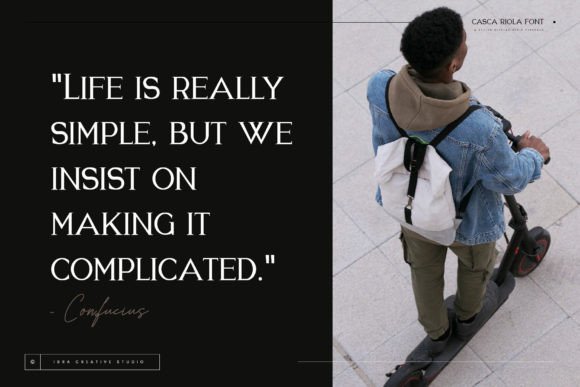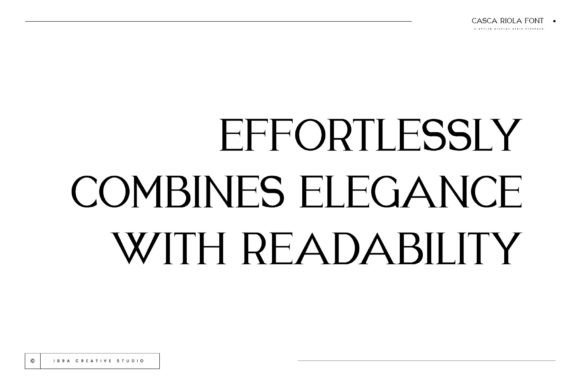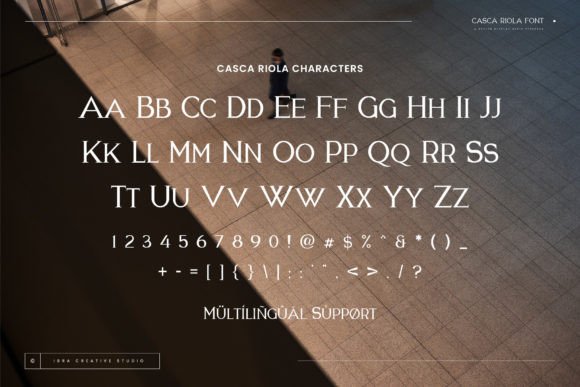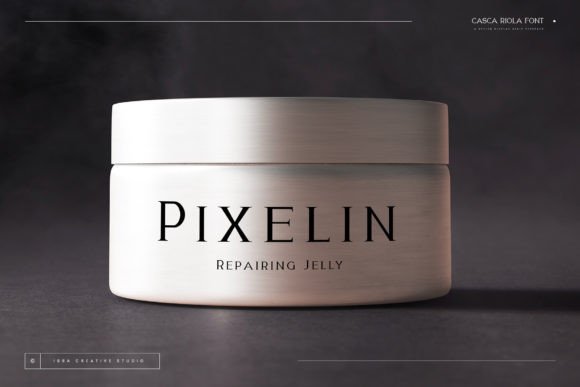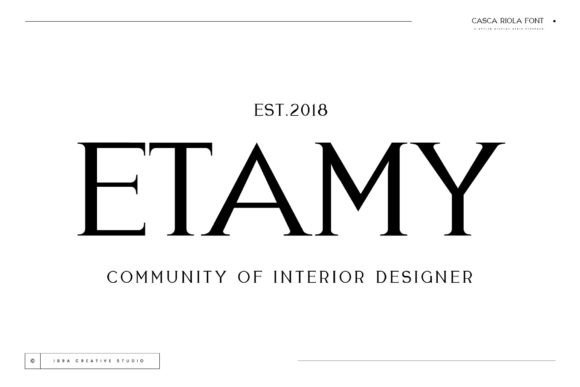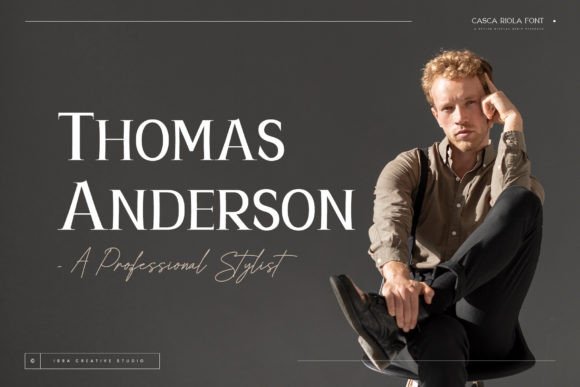
Introducing Casca Riola Font: A Timeless Classic Display Serif
In the world of typography, few fonts manage to strike a balance between elegance and readability. Casca Riola Font is one such exceptional typeface that effortlessly combines traditional and contemporary design elements, making it a versatile choice for various applications. This stunning display serif font is a masterpiece of refined letterforms, sturdy serifs, and well-defined strokes that exude authority, sophistication, and modernity.
The Design Philosophy of Casca Riola Font
Casca Riola Font is rooted in a deep understanding of typographic design principles. Its creator aimed to craft a font that would not only pay homage to classic serif typefaces but also infuse them with a fresh, modern twist. The result is a font that boasts a harmonious balance between traditional and contemporary elements, making it perfect for designers and crafters seeking a sophisticated and elegant typographic solution.
Key Features of Casca Riola Font
- Refined Letterforms: Casca Riola Font features exquisitely crafted letterforms that showcase a perfect blend of classic and modern design elements. Each letter is carefully designed to ensure optimal readability and aesthetic appeal.
- Sturdy Serifs: The sturdy serifs in Casca Riola Font add a sense of authority and sophistication, making it suitable for use in headings, titles, and other display applications.
- Well-Defined Strokes: The well-defined strokes in Casca Riola Font contribute to its exceptional readability, even at smaller sizes.
- Subtle Details: The subtle details in the letter shapes add a touch of modernity to the font, setting it apart from more traditional serif typefaces.
Applications of Casca Riola Font
Casca Riola Font’s versatility makes it an excellent choice for a wide range of applications, including:
- Branding and Logo Design: The font’s elegant and sophisticated design makes it perfect for use in branding and logo design, particularly for luxury brands, high-end products, and services.
- Headings and Titles: Casca Riola Font’s sturdy serifs and well-defined strokes make it an excellent choice for headings and titles in publications, websites, and marketing materials.
- Packaging Design: The font’s refined letterforms and subtle details make it suitable for use in packaging design, particularly for premium products.
- Digital Media: Casca Riola Font’s exceptional readability and elegant design make it an excellent choice for use in digital media, including websites, social media, and mobile apps.
Why Choose Casca Riola Font?
With so many fonts available, why choose Casca Riola Font? Here are a few compelling reasons:
- Timeless Design: Casca Riola Font’s classic design ensures that it will remain relevant for years to come, avoiding the need for frequent font updates.
- Versatility: The font’s versatility makes it suitable for a wide range of applications, from branding and logo design to packaging and digital media.
- Elegance and Sophistication: Casca Riola Font’s elegant and sophisticated design makes it perfect for use in high-end applications where a premium look and feel are essential.
Casca Riola Font is a masterpiece of typographic design, effortlessly combining elegance with readability. Its refined letterforms, sturdy serifs, and well-defined strokes make it a versatile choice for designers and crafters seeking a sophisticated and elegant typographic solution. Whether you’re working on a branding project, designing a website, or creating packaging materials, Casca Riola Font is an excellent choice that is sure to impress.